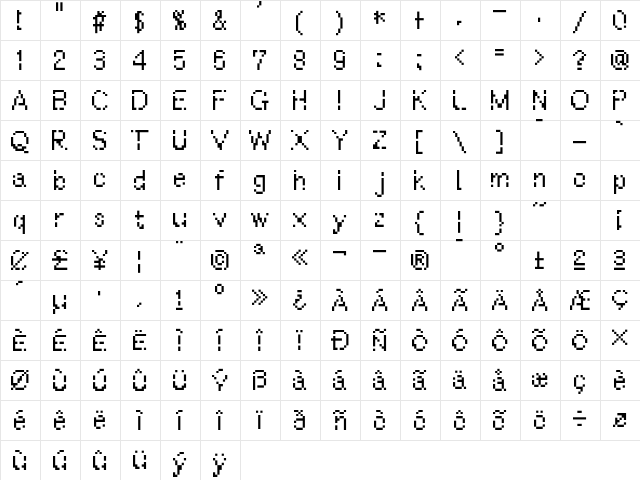
WWareTypeB Regular
| Designer | Caveras / Cliff Modes |
Design Context for WWareTypeB Typeface
WWareTypeB takes a measured approach to typography — its balanced proportions and neutral character make it a reliable workhorse for both digital and print work.